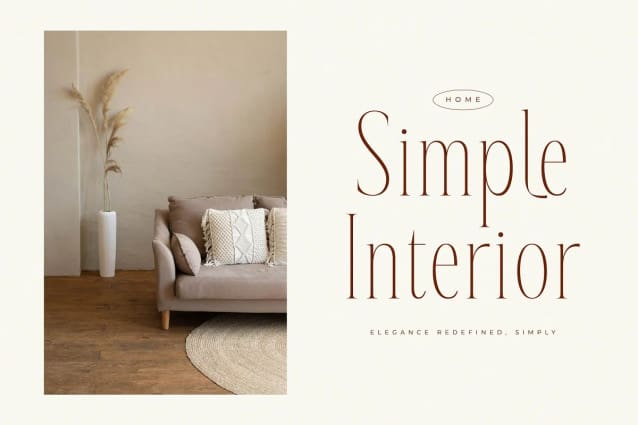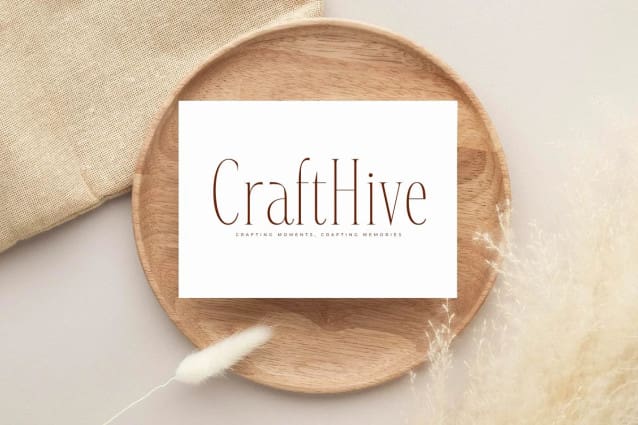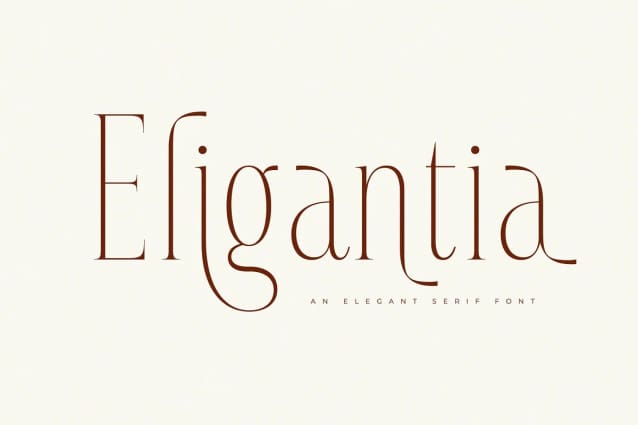
Eligantia Font
Eligantia Font is an elegant and serif with various alternates and ligatures. It’s suitable for logos, short quotes or other designs with an elegant feel in big sizes.